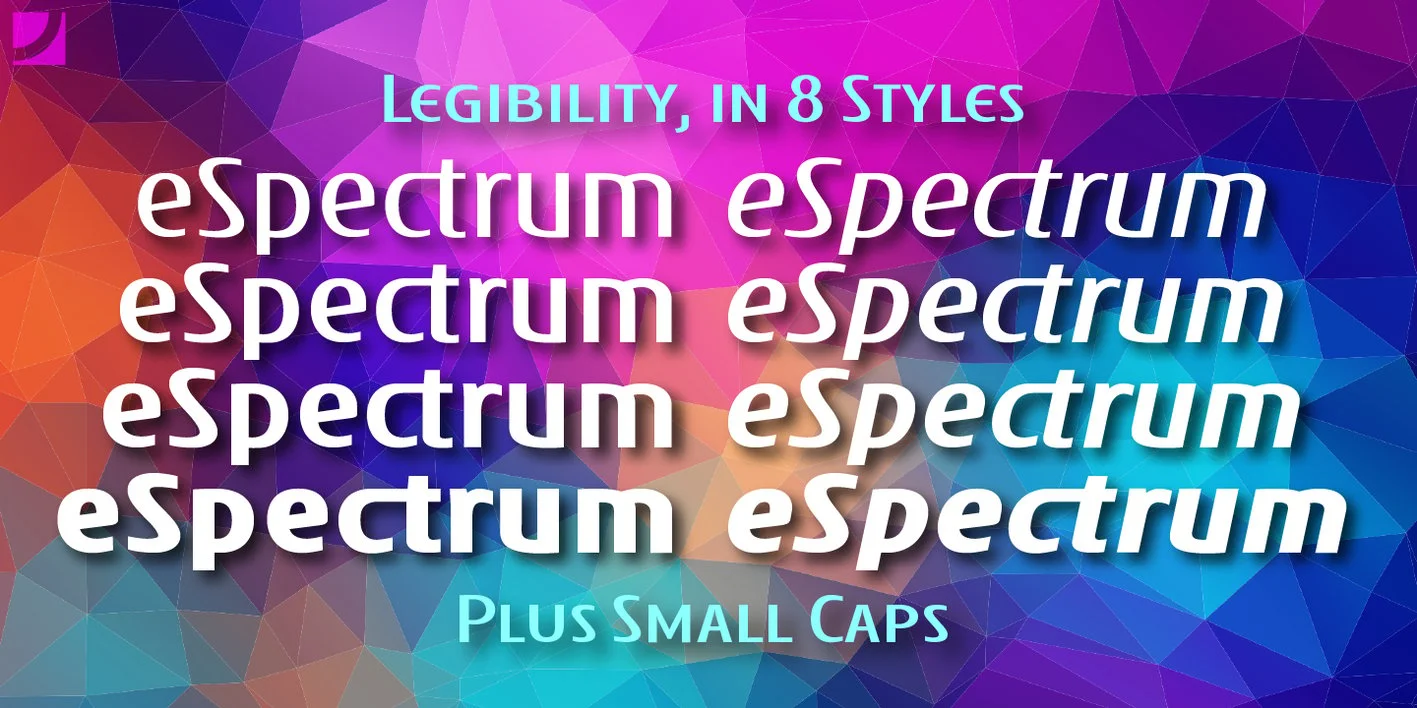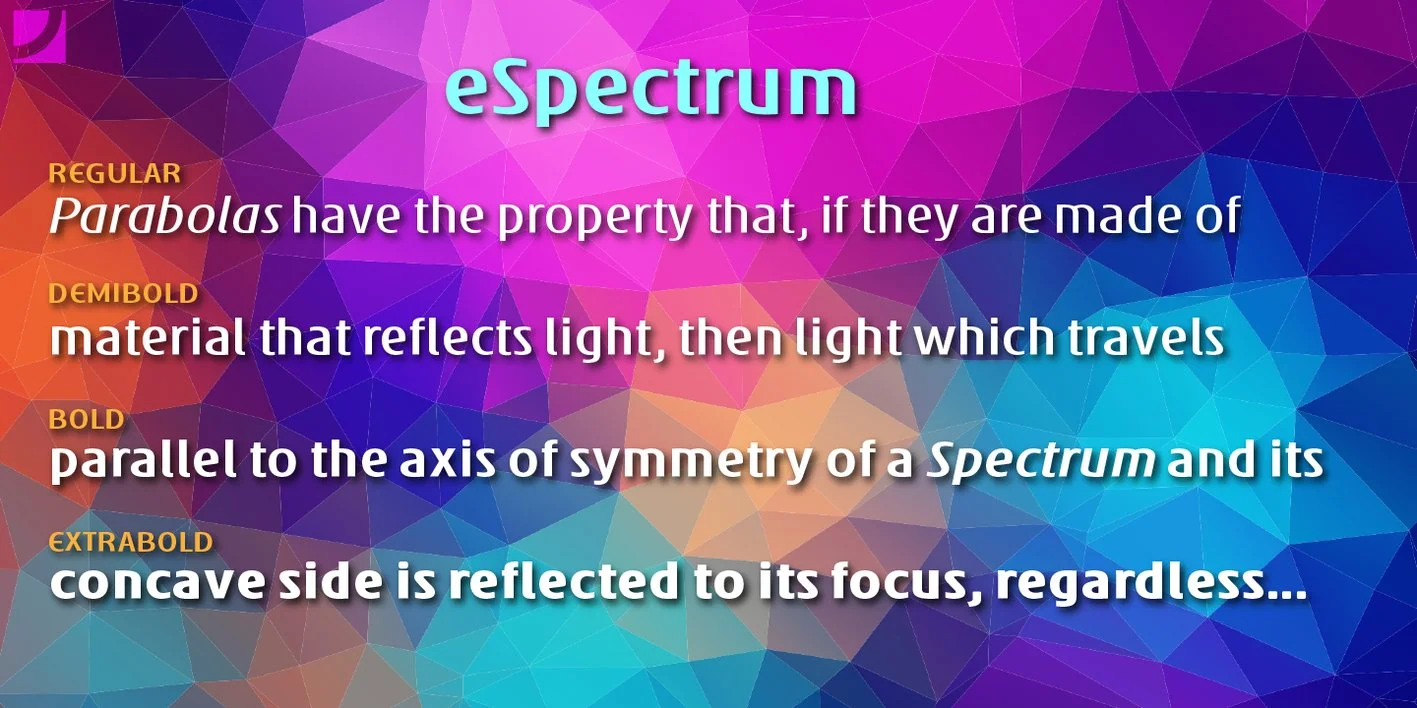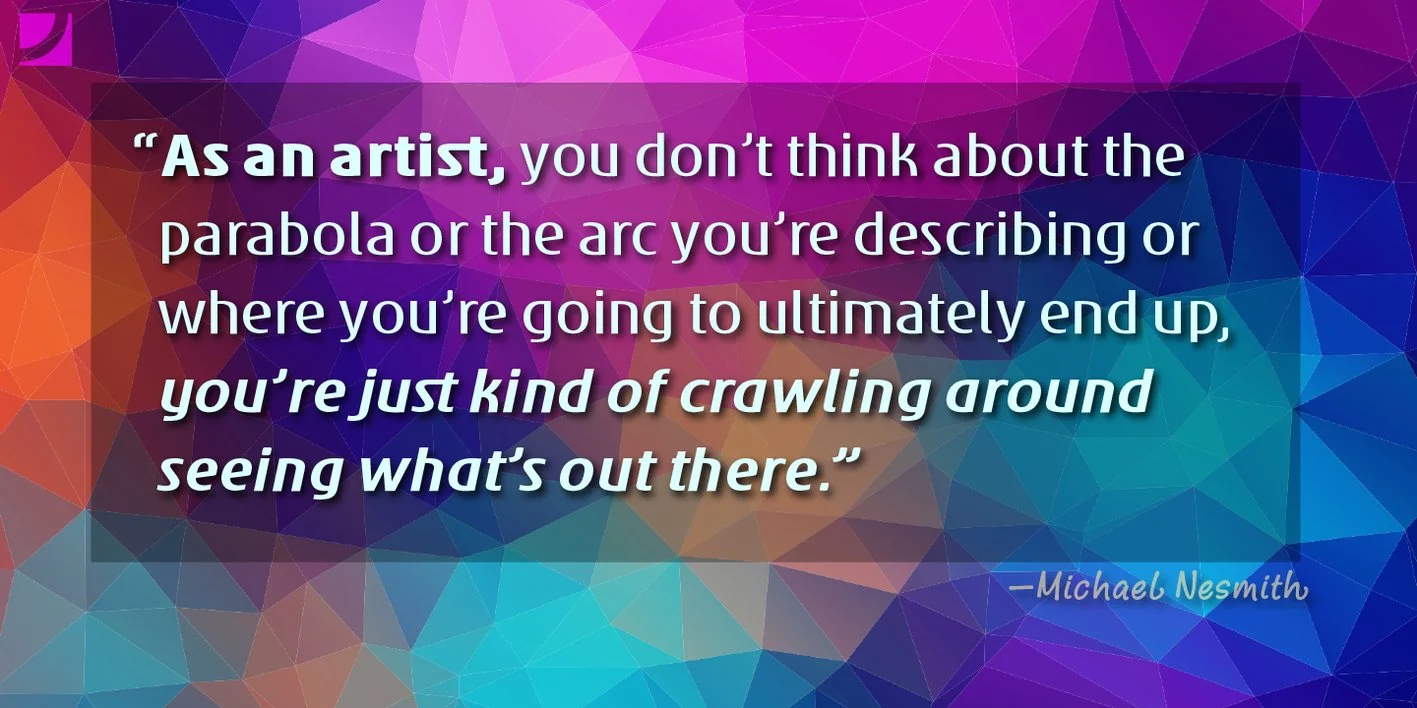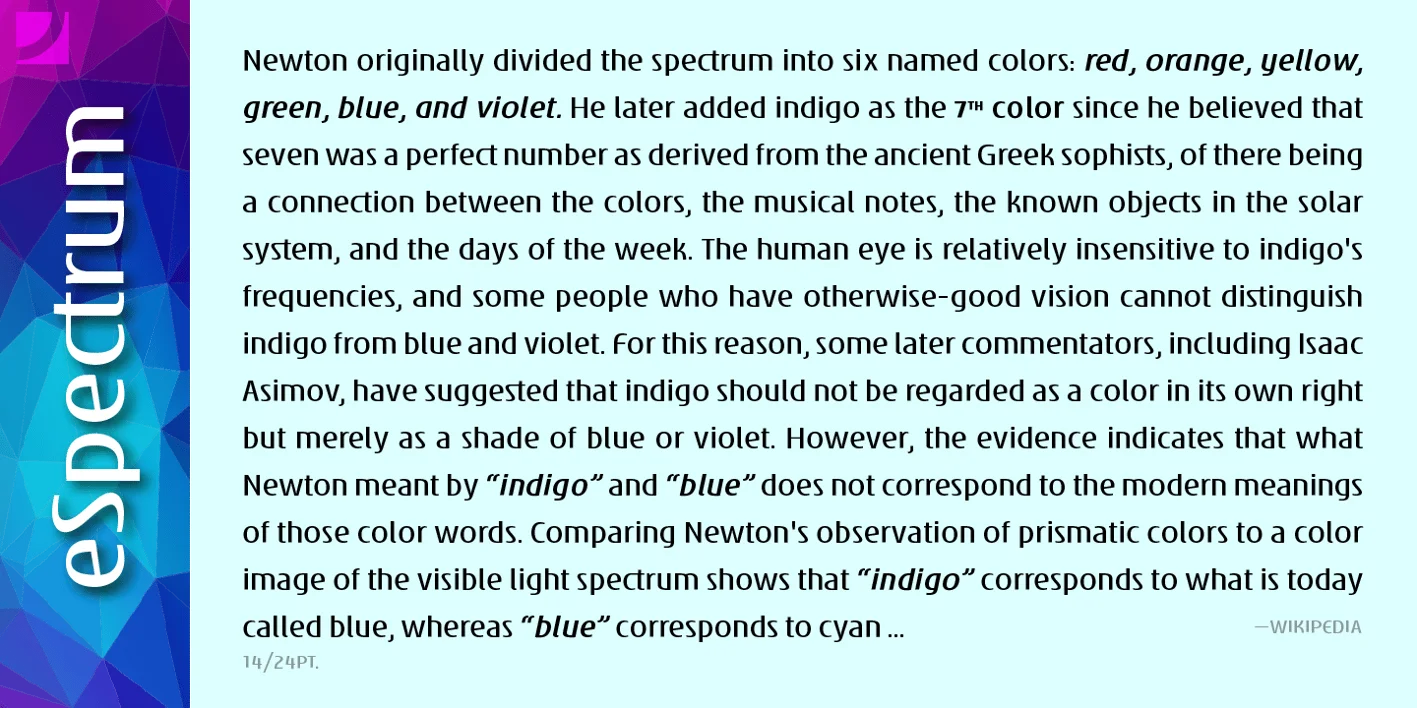
eSpectrum Font
eSpectrum is a thoughtfully constructed typeface that performs equally well in display and body text settings.
It is an excellent choice for branding projects, logo design, packaging, editorial layouts, social media graphics, and product labels.
The type achieves strong legibility through its open apertures, generous x-height, and carefully weighted strokes.